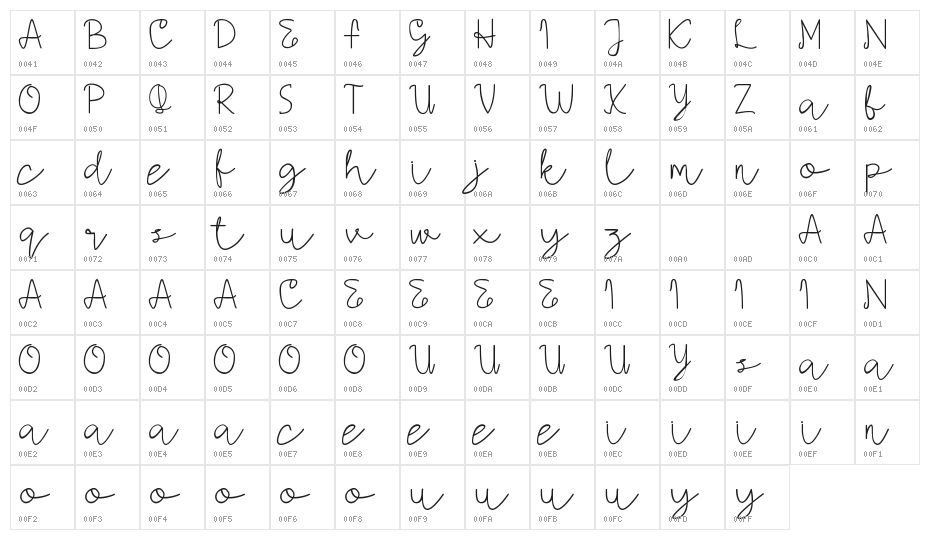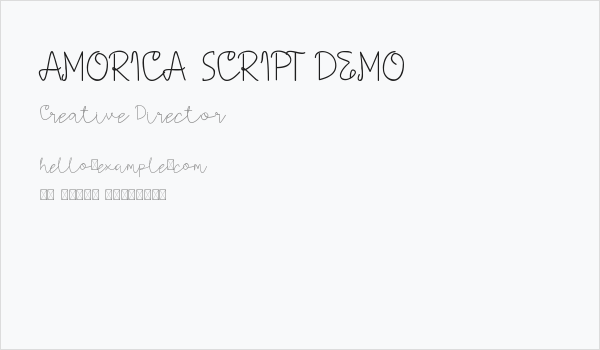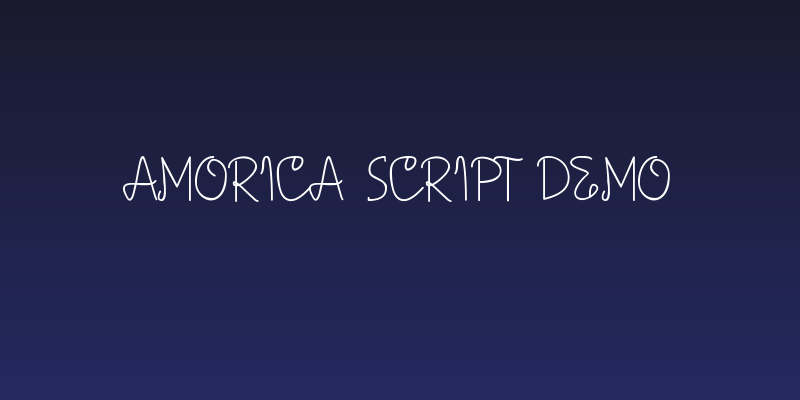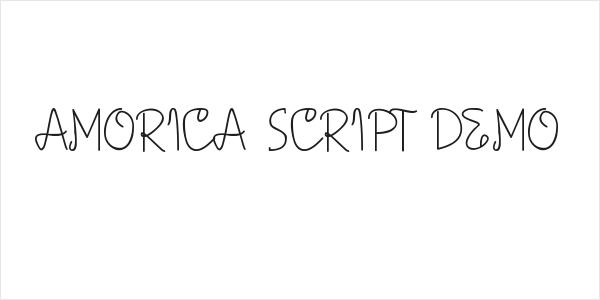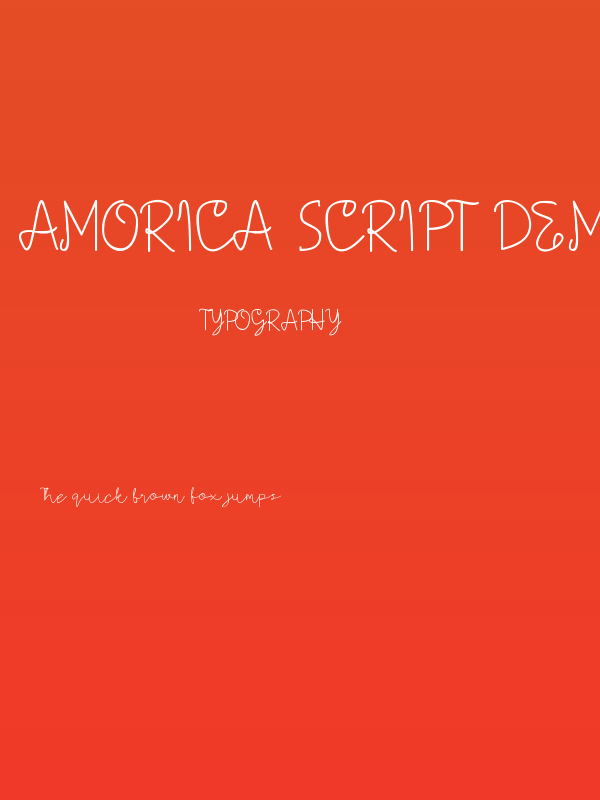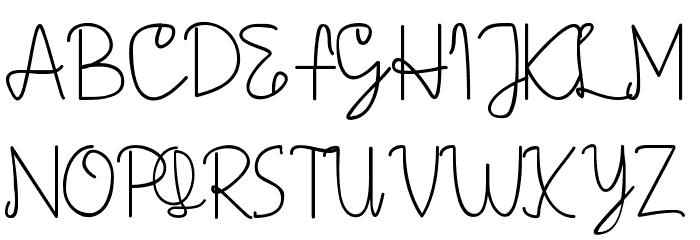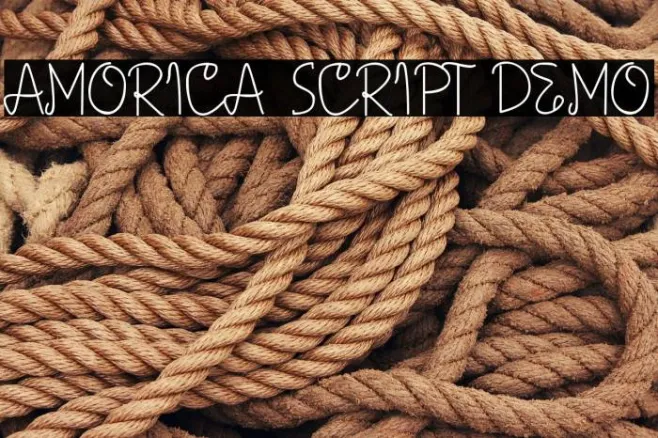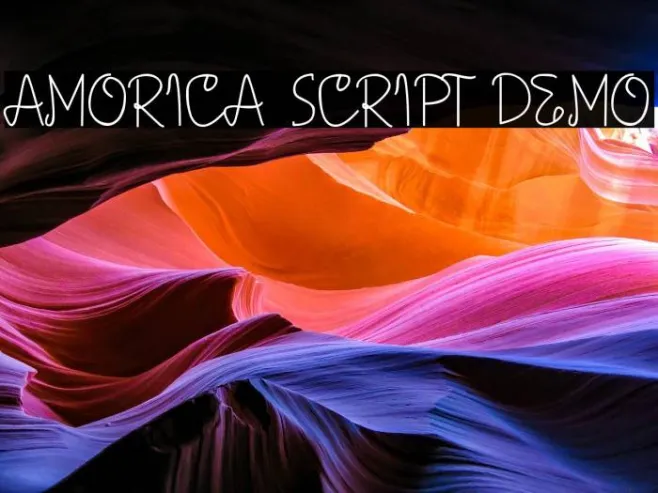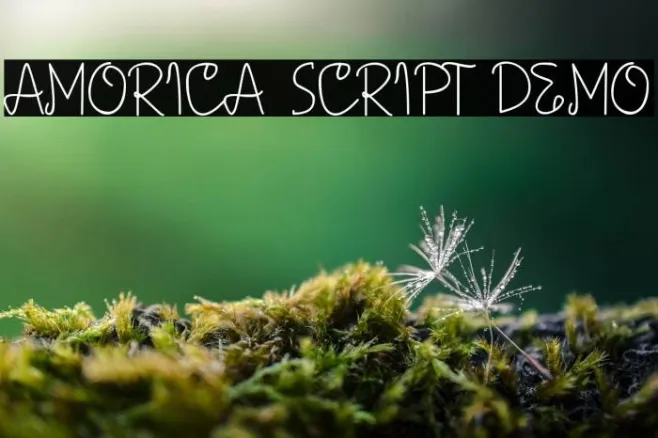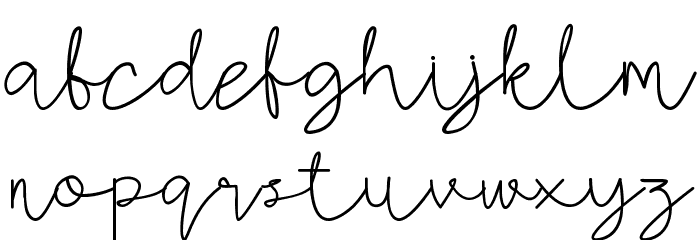
AMORICA SCRIPT DEMO Font
AMORICA SCRIPT DEMO Description
This font exudes a playful and whimsical charm with its flowing, interconnected script style. The characters are elegantly looped and feature a consistent stroke width, giving it a harmonious and fluid appearance. The uppercase letters are distinct and slightly more structured, while the lowercase letters maintain a casual, handwritten feel. This font is perfect for adding a personal touch to any project, with its unique blend of elegance and informality. The spacing between characters is balanced, ensuring readability while maintaining its artistic flair.